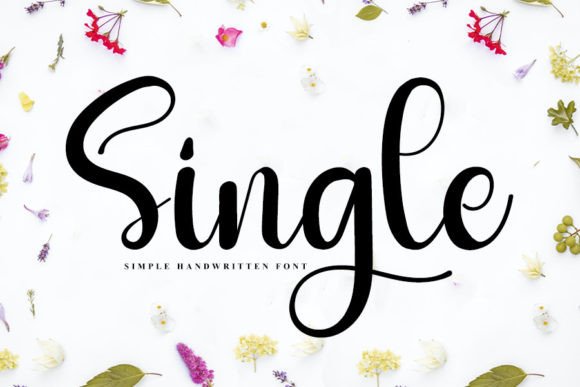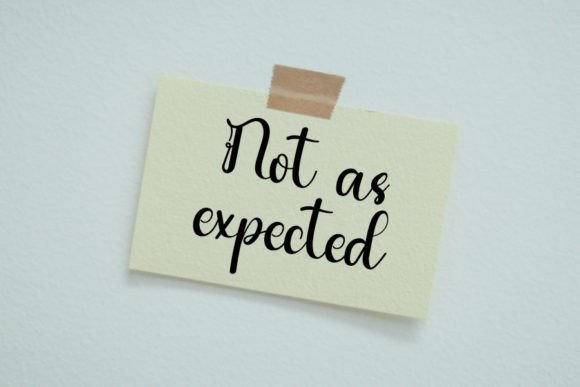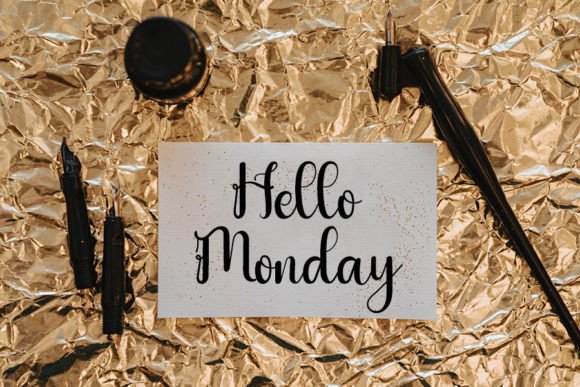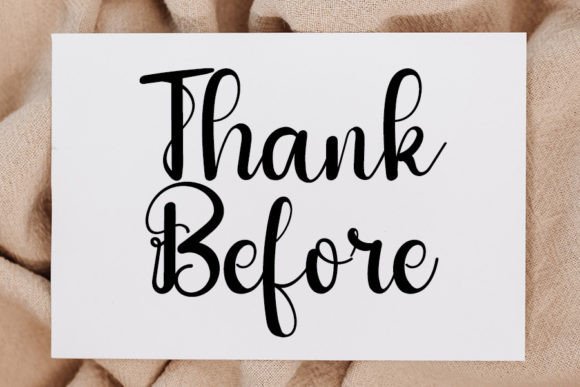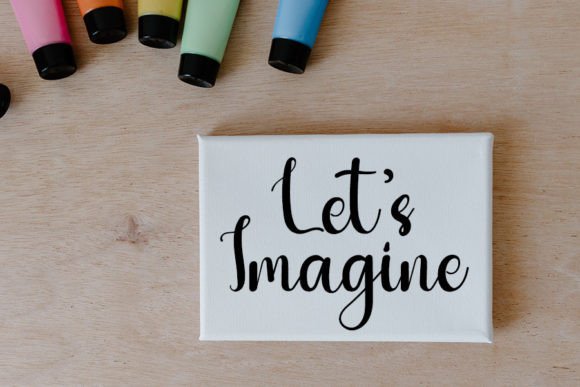
Single Font
About Single Font
“Single” is an exquisite and well-crafted handwritten font that boasts a neat and elegant touch, making it an ideal choice for a wide range of creative projects. Its incredibly distinct and timeless style captures attention and adds a touch of sophistication to your designs. “Single” is here to inspire you to create spectacular and memorable visuals.
The standout feature of “Single” is its remarkable clarity and elegance. Each character is meticulously designed to achieve a refined and stylish appearance, making it a versatile font choice that suits various design contexts. Whether you’re working on print materials, digital graphics, websites, or any other creative endeavor, “Single” enhances your projects with its timeless appeal.
The font’s distinct style allows it to stand out and leave a lasting impression. It has the power to evoke a sense of love and admiration, making it suitable for a wide array of projects where aesthetics and visual impact are essential.
“Single” lends itself well to different creative applications. Its neat and beautiful handwritten design adds a personalized and authentic touch to your work, making it perfect for crafting invitations, designing product packaging, creating social media graphics, and much more. Its versatility ensures that it can be adapted to various design needs.
This font’s timeless style means that it remains relevant and appealing over time, making it a reliable choice for both contemporary and classic design projects. It offers a harmonious balance between distinctiveness and elegance, making it easy to incorporate into your creative vision.
In conclusion, “Single” is a remarkable handwritten font that combines neatness, elegance, and distinctiveness. Its timeless style makes it an excellent choice for designers seeking to create spectacular and unforgettable designs. Embrace the clarity and elegance of “Single” in your next project, and watch as it transforms your creations into visual masterpieces.